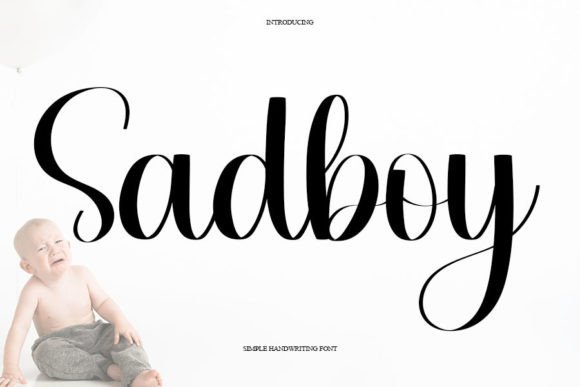
Prepare yourself to be spellbound by Sadboy, an extraordinary script font crafted with heartfelt authenticity by Ganden Letter. Allow your projects to blossom with a touch of elegance and originality as you dive into the realm of Sadboy's captivating charm.
With its graceful curves and unpretentious style, Sadboy effortlessly blends the allure of handwritten artistry with the precision of digital craftsmanship. Experience the joy of effortless creativity as Sadboy's enchanting strokes effortlessly flow across your designs, evoking a sense of nostalgia and timeless beauty.
Unleash your imagination and embark on a creative expedition with Sadboy as your trusted companion. Whether you're designing heartwarming greeting cards, crafting captivating headlines, or seeking to infuse your projects with an endearing personal touch, Sadboy rises to the occasion with remarkable versatility. Its inherent adaptability makes it an indispensable asset for a myriad of design endeavors.
Sadboy's innate simplicity transcends mere aesthetics, captivating hearts with its ability to evoke profound emotions. Allow your words to dance with grace and authenticity as Sadboy's delicate lines intertwine, painting a tapestry of heartfelt sentiments. Engage your audience on a deeper level, forging an emotional connection that resonates beyond the boundaries of ordinary communication.
As you immerse yourself in the boundless possibilities of Sadboy, discover the transformative power of simplicity. Shed the shackles of conventional fonts and embrace the liberation of natural, unadorned beauty. Sadboy's understated elegance elevates your designs, allowing their inherent charm to shine through.
With Sadboy as your creative ally, transcend the mundane and step into a world where every project is infused with a touch of magic. Its versatility knows no bounds, seamlessly adapting to a kaleidoscope of design aesthetics, from the whimsical and playful to the refined and sophisticated.
Seize the opportunity to make a lasting impression, to weave a tale of enchantment with each stroke of Sadboy's graceful characters. Let your designs sing with a melody of authenticity and heartfelt emotion. Embrace the allure of simplicity and watch as Sadboy transforms your creative visions into captivating masterpieces.